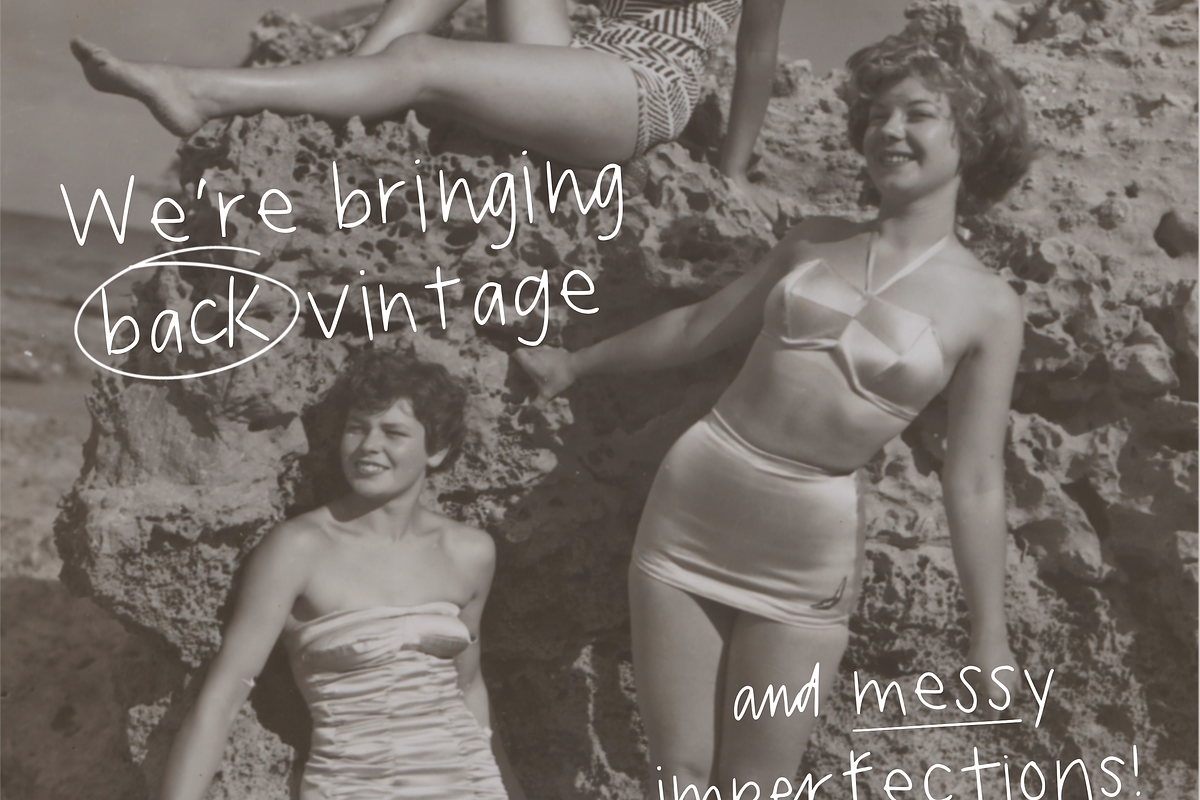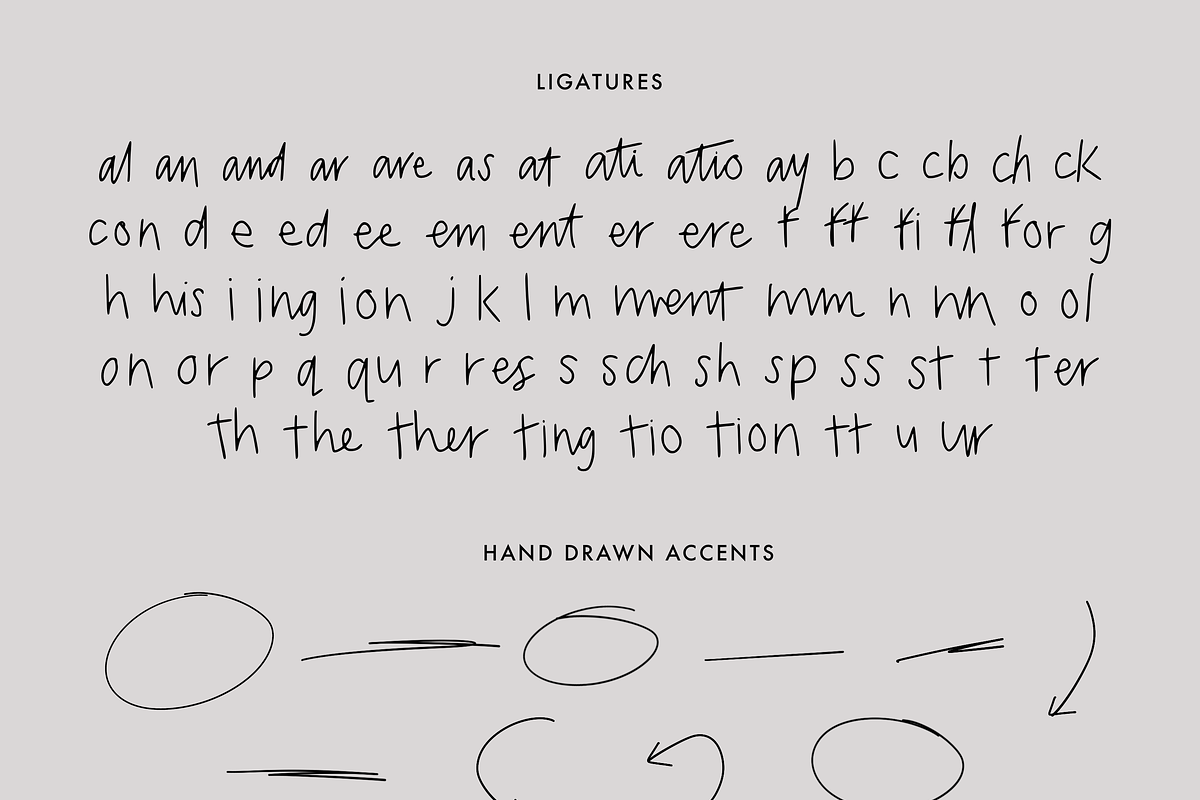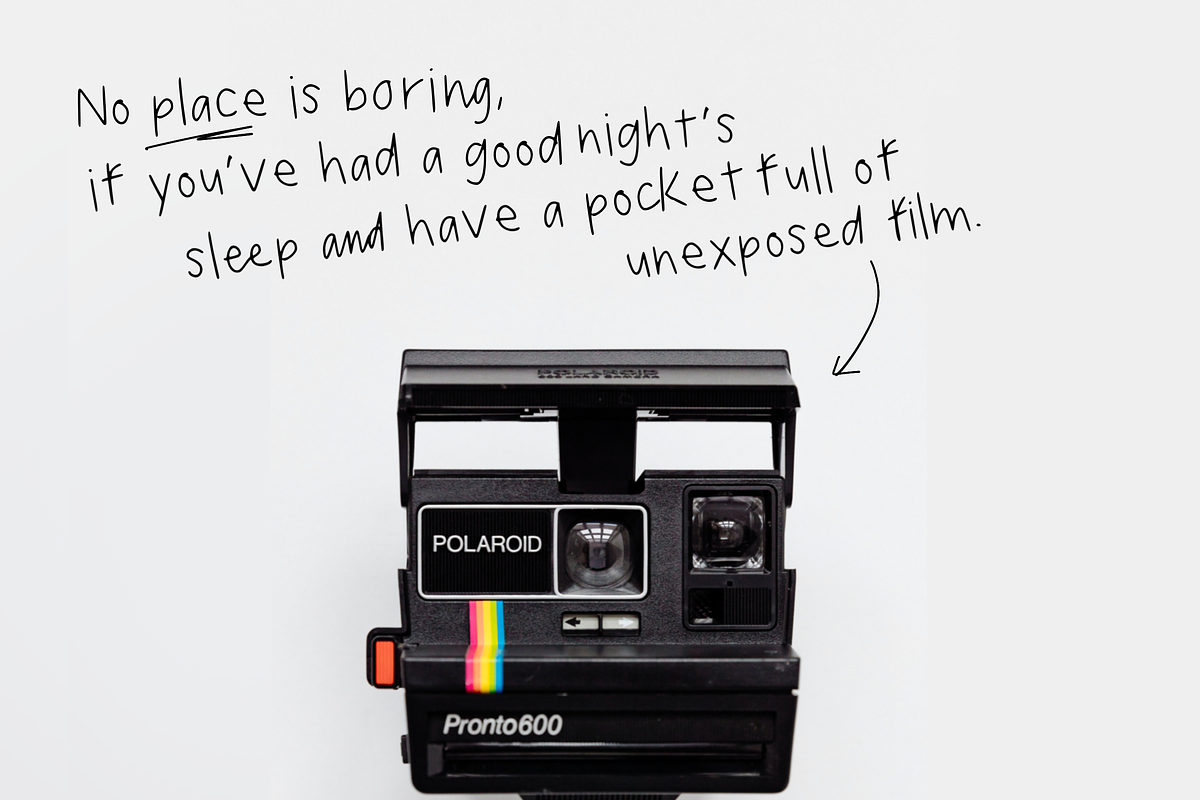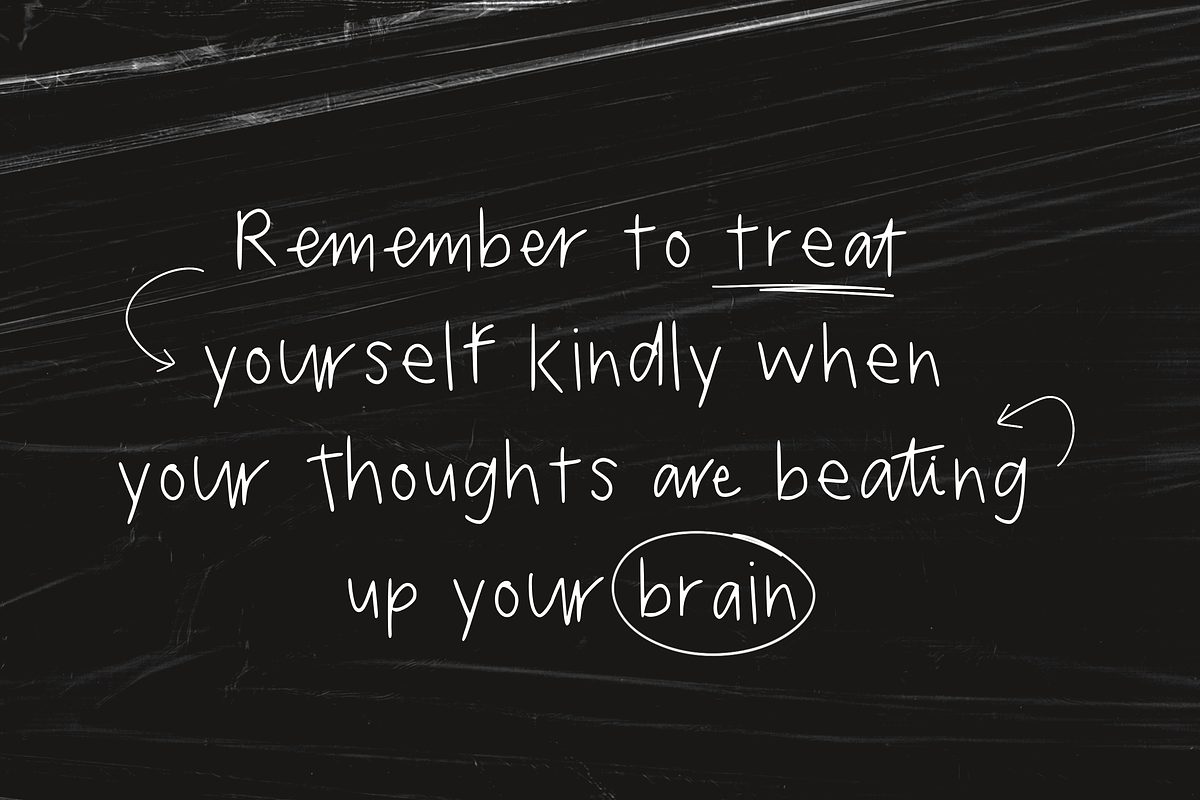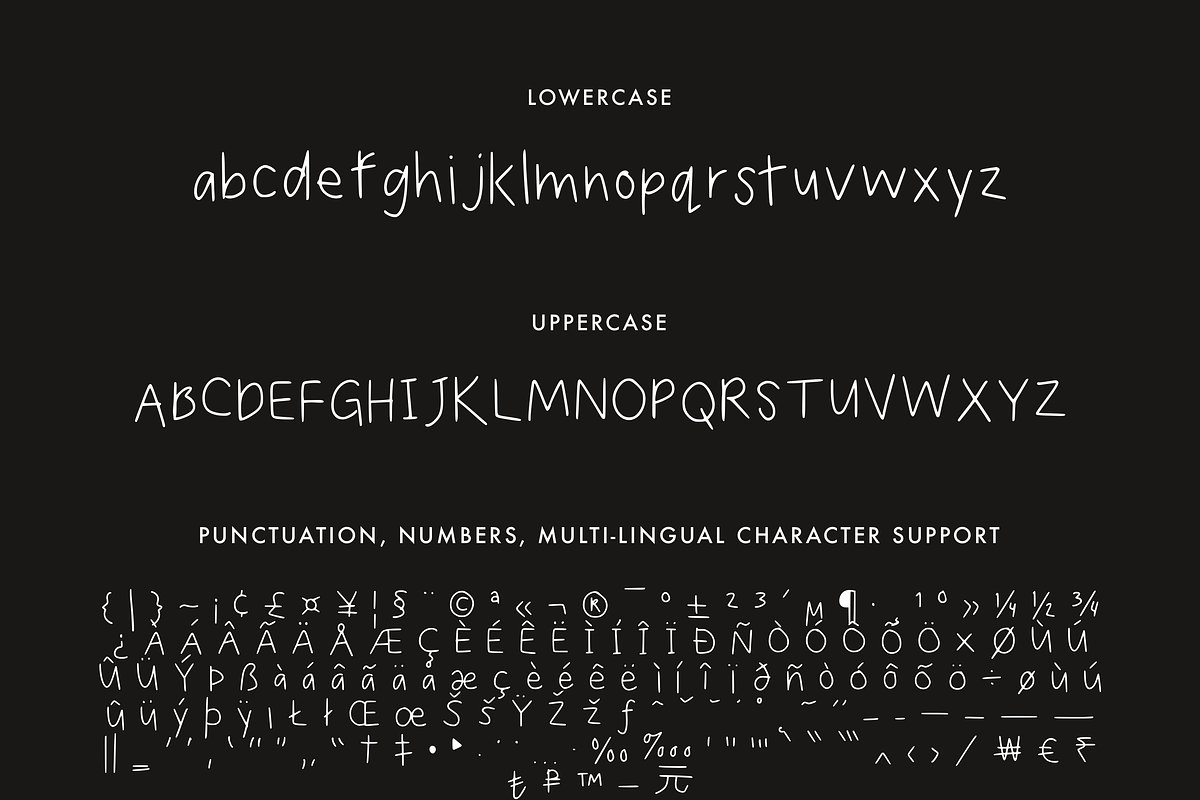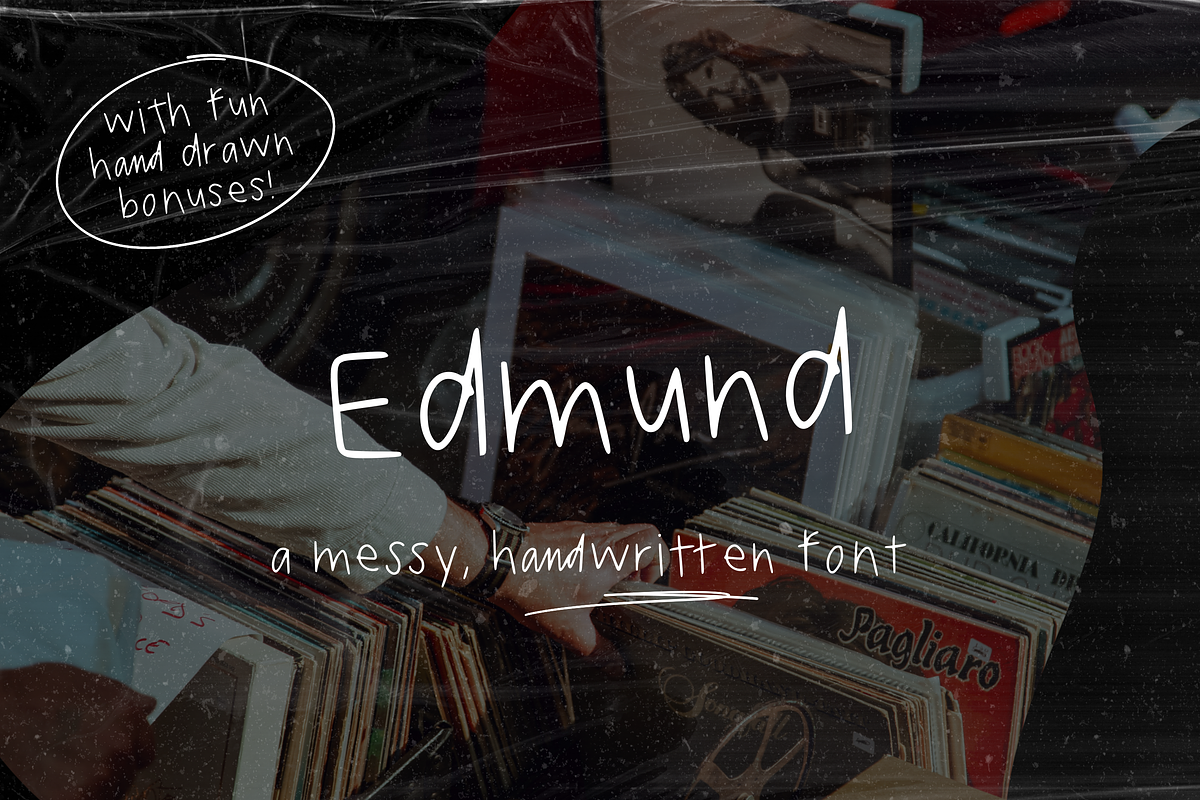
Edmund - A handwritten font
Edmund - a handwritten, messy font with lots of sophisticated character. Great for creating shareable Instagram quote posts, invitations and stationary, and loads more. This is full font, which features all uppercase and lowercase letters, numbers and punctuation, multi-lingual, and ligatures. Hand drawn elements are included as bonuses to bring attention to the fun of the Edmund! Desktop license included, which allows you to use the font in end-products for sale.